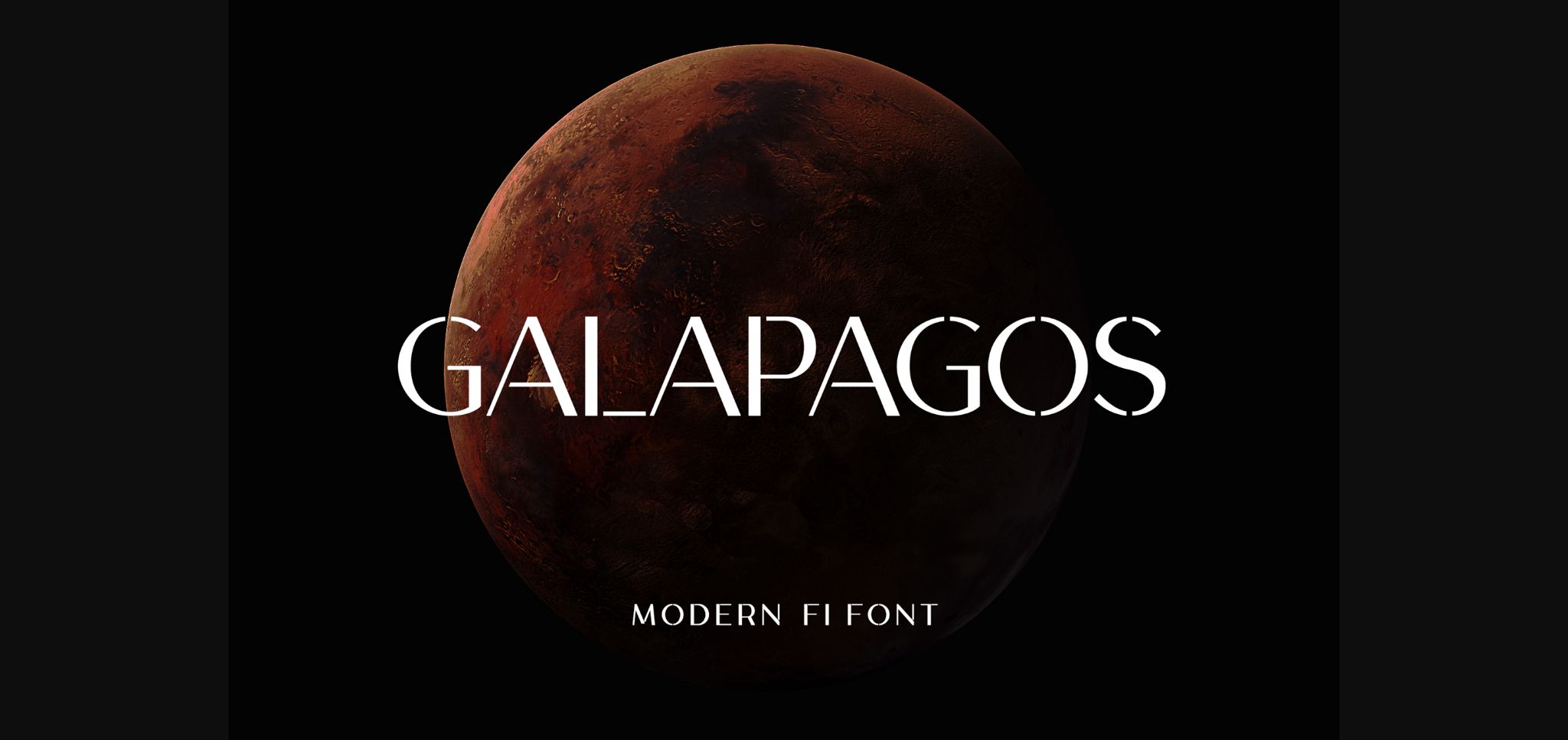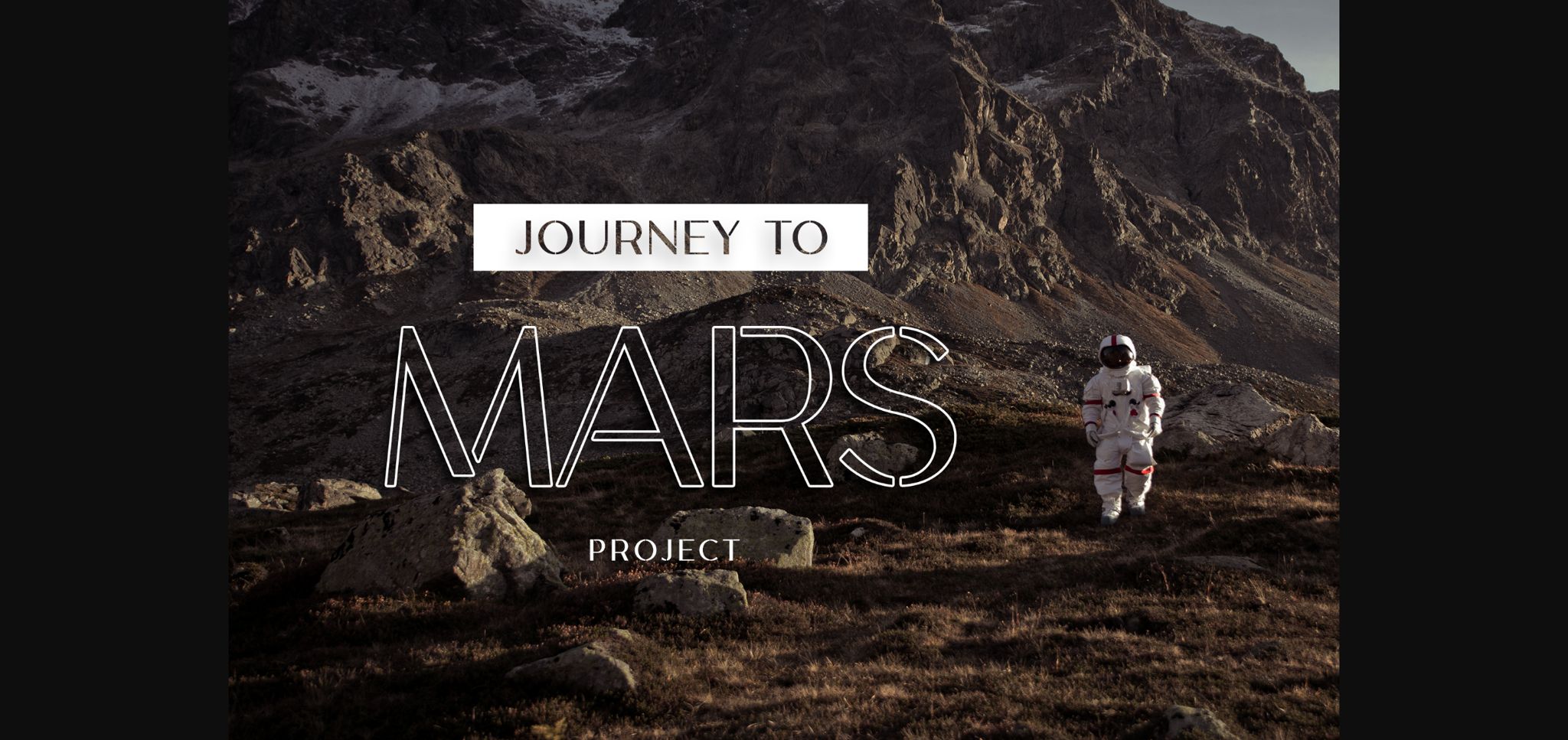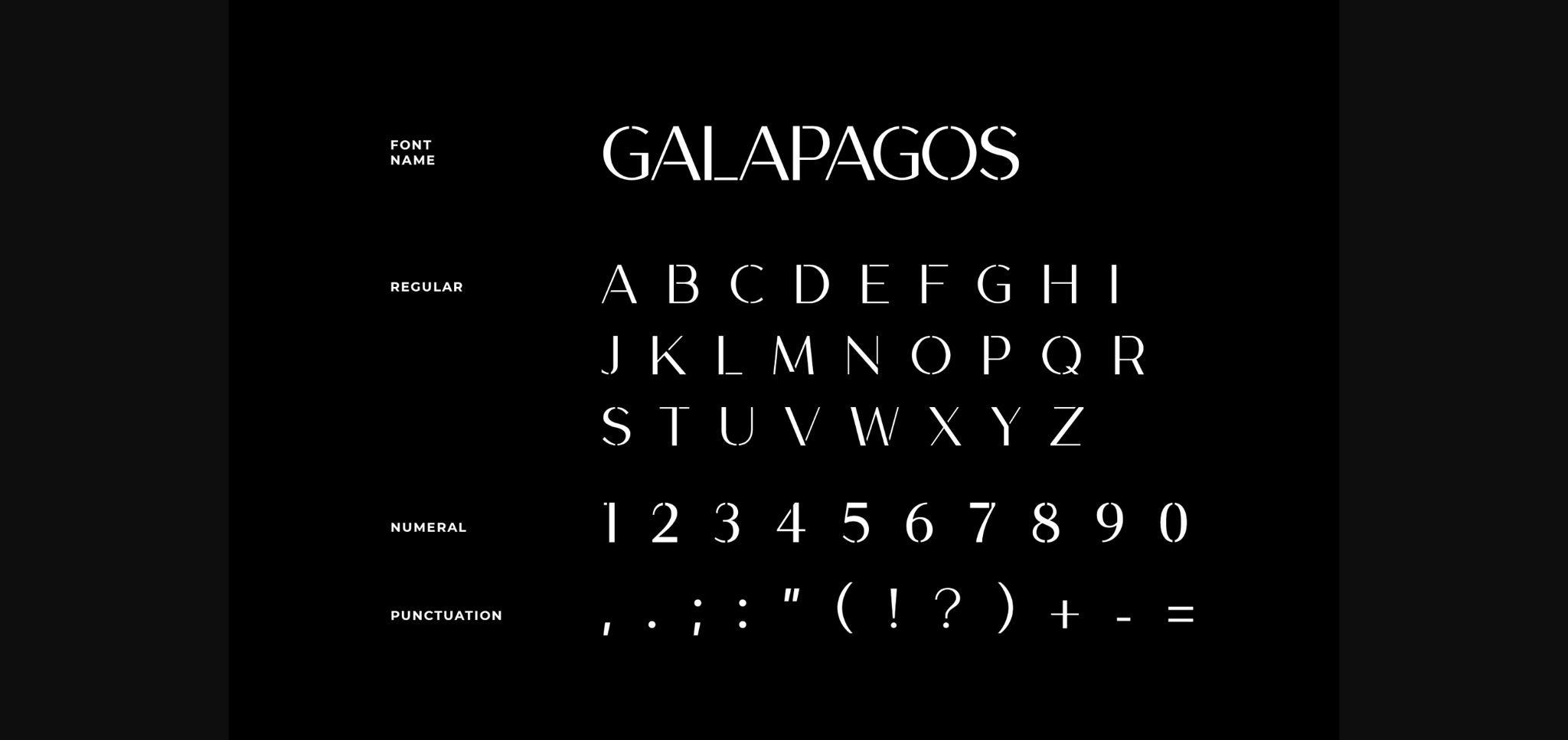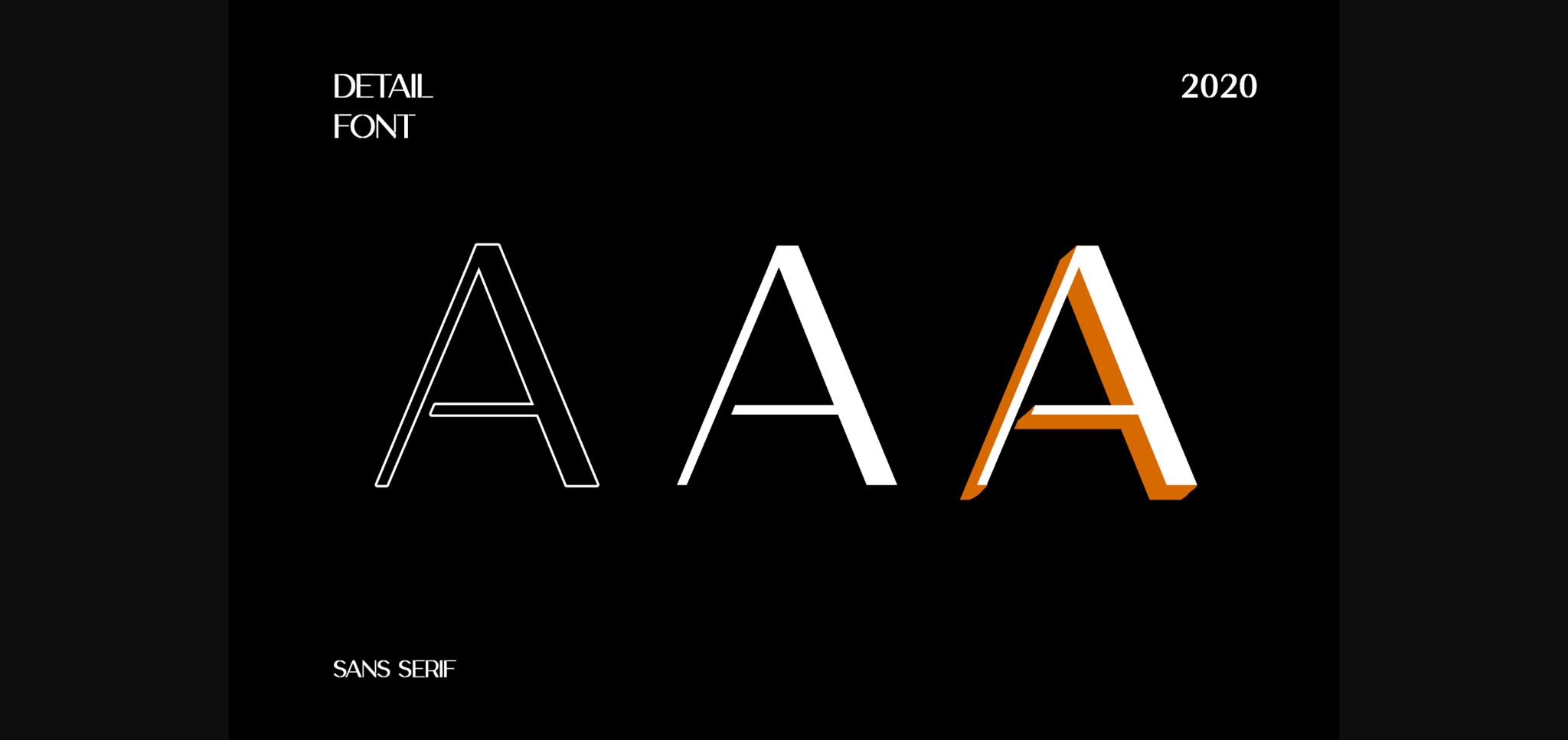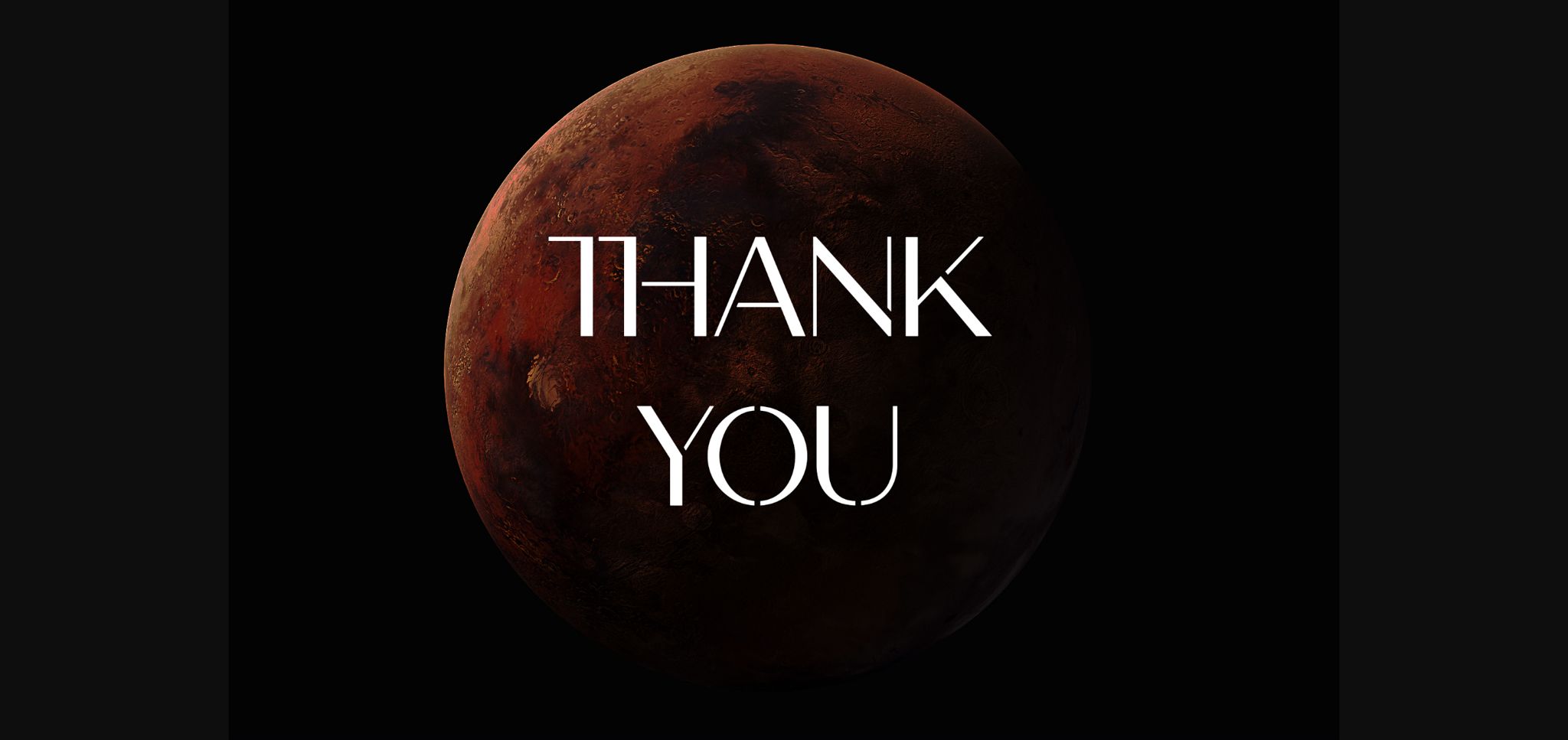
Galapagos Font
About Galapagos Font
Galapagos is a neat, sci fi and modern sans serif font. It can easily be matched to any technological or futuristic project. The only limit is your imagination!